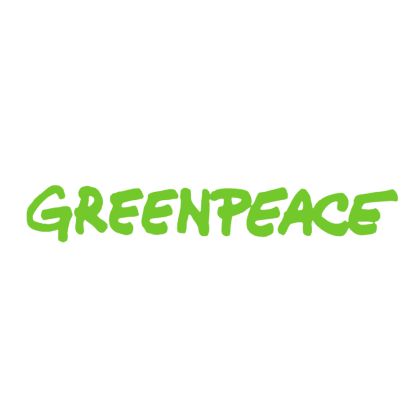
Greenpeace Font Greenpeace is an international NGO working on a purpose for the protection and conservation of the green environment. As you can see, there are four different capital “E”s in the Greenpeace logo, it is unlikely the lettering is an actual font.